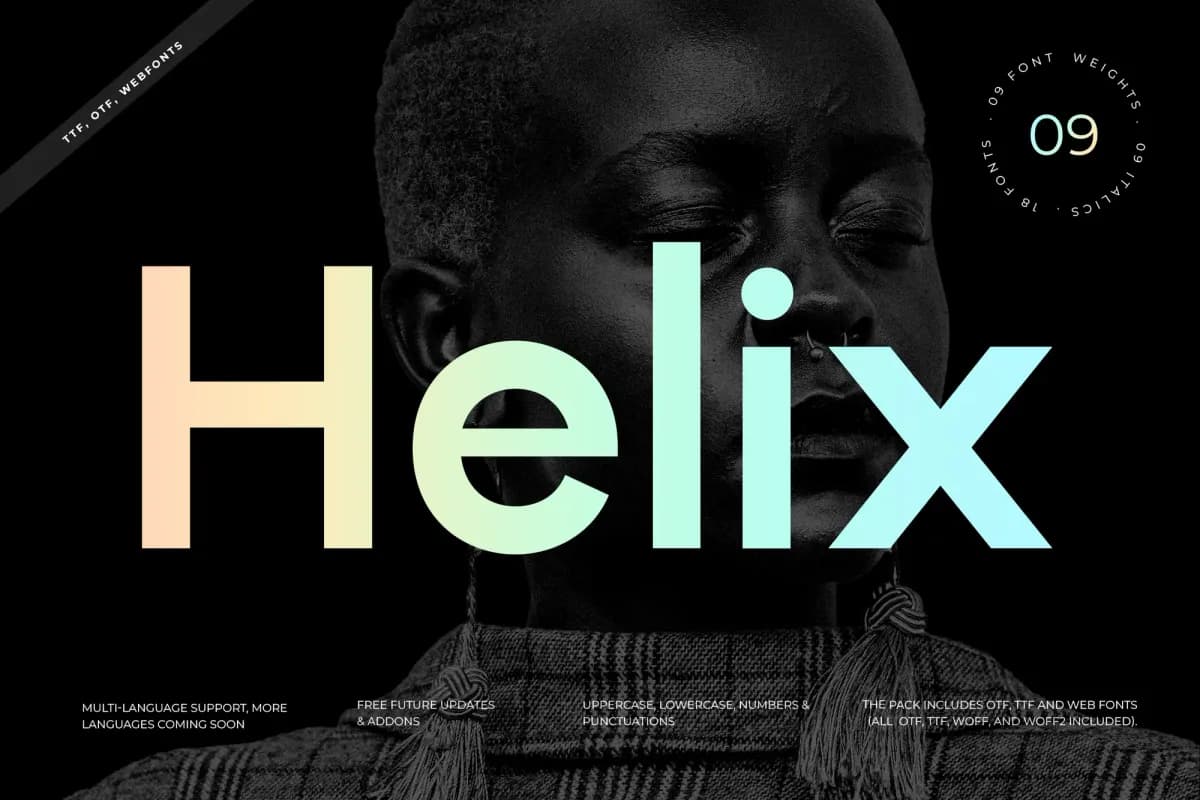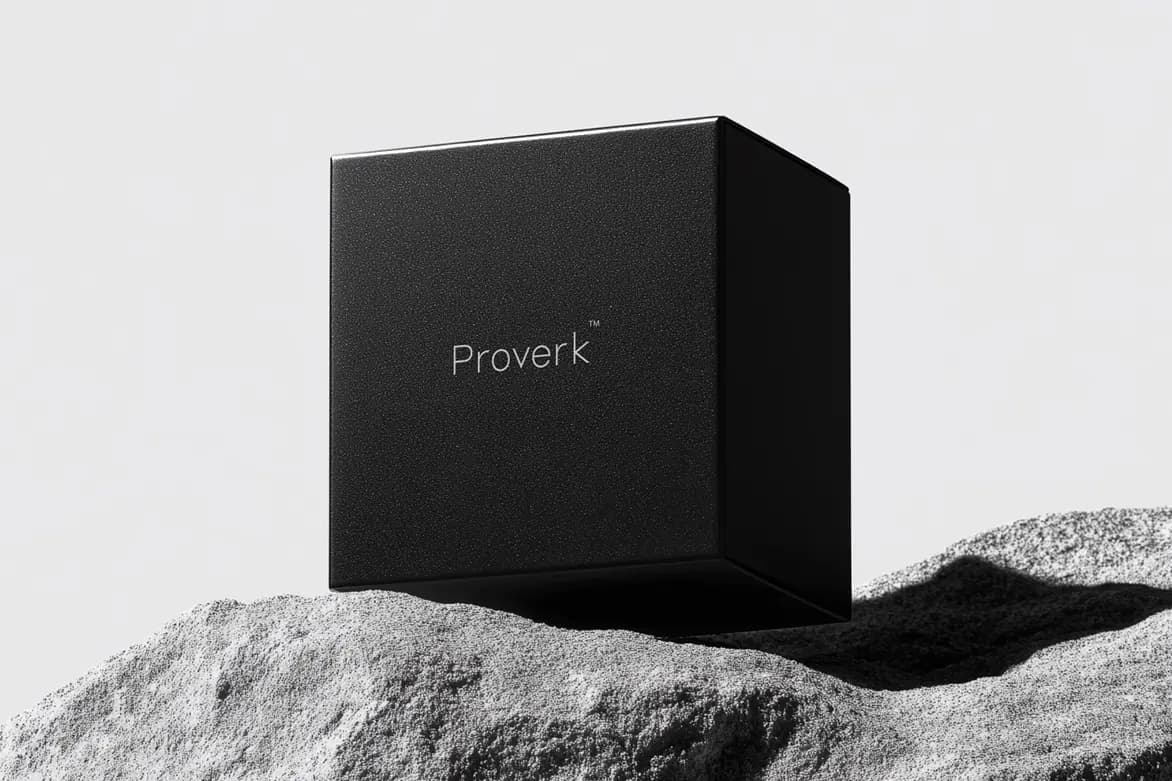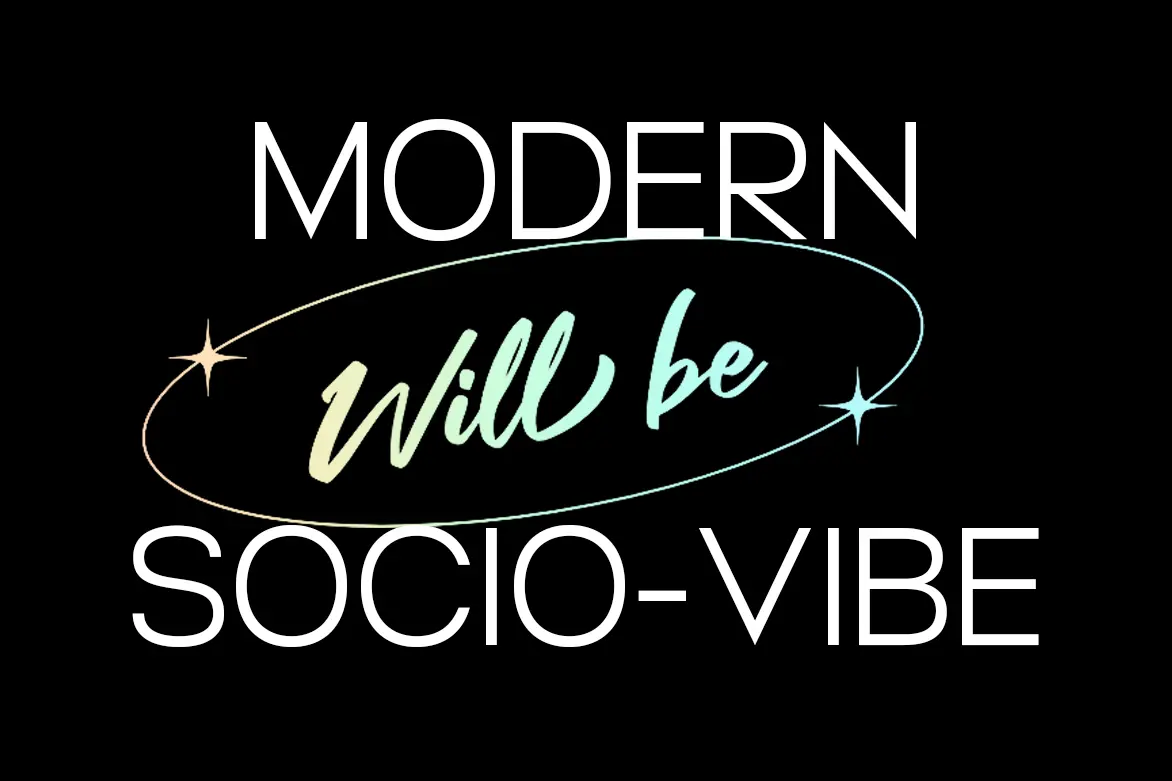
Helix
Overview
Helix is a modern sans-serif typeface designed for dynamic projects. With its clean lines and modular structure, it excels in magazine layouts, branding, and advertising. Helix is perfect for architecture presentations and digital media, making it a versatile choice for designers seeking a contemporary aesthetic.
Design Traits
- Geometric shapes create a structured appearance.
- Generous spacing enhances readability.
- Modern tone suits various design contexts.
- Ideal for both print and digital applications.
Key Features
- Multiple weights and italics for versatile usage.
- Extensive character support for diverse languages.
- Optimized for print and screen performance.
Best Use Cases
- Magazine layouts for striking headlines.
- Branding projects that require a modern touch.
- Advertising campaigns needing clear messaging.
- Social media graphics on Instagram and TikTok.
- Architecture presentations for professional appeal.
Why Designers Choose Helix
- Dynamic and adaptable for various styles.
- Easy to read across different platforms.
- Sleek design enhances overall project aesthetics.
- Reliable performance in print and digital formats.
- Supports creative flexibility with multiple weights.